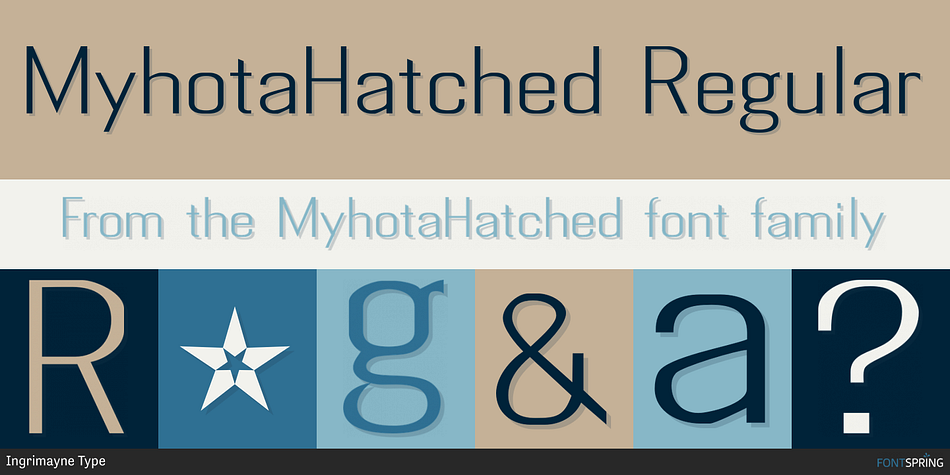
MyhotaHatched Regular
Designed by Robert Schenk, MyhotaHatched is a sans serif font family. This typeface has six styles and was published by Ingrimayne Type.
Myhota-Hatched was an attempt to see if a readable text font could be hatched out of Myhota by lowering the x-height and widening the letters. The result is a face with rather squarish letters. The regular and bold were original styles with the medium and italic styles added in 2021.